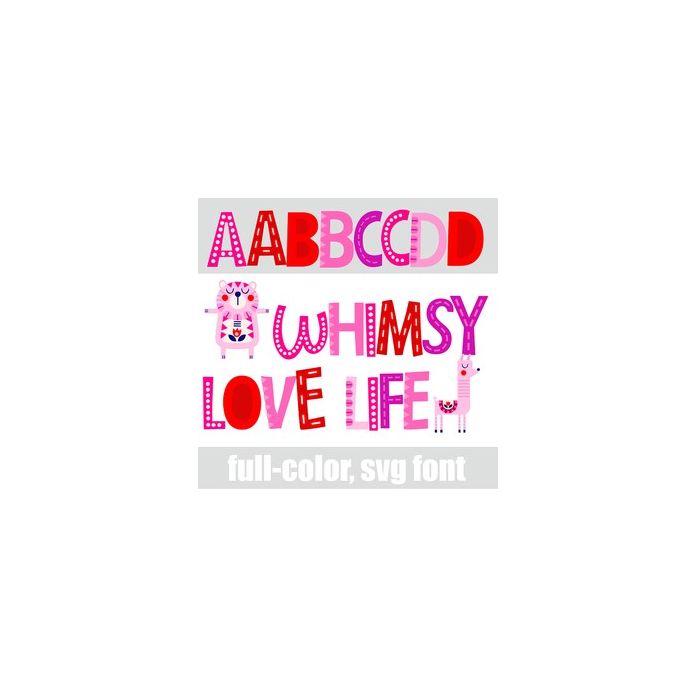
This adorable, crafty, Valentines font is youthful and sports a bright pink and red color palette. Access cute Valentines animals by typing the greater than and less than glyphs or rectangle brackets. There is an alt case w/ additional colors you can access through your system or Silhouette's glyph map.